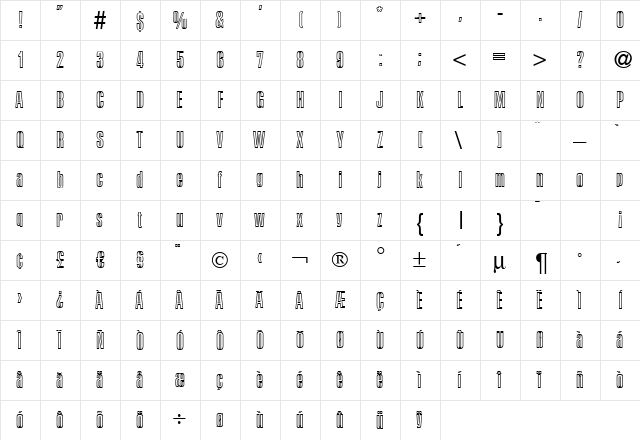
P700-Sans-Outline Regular
Design Context for P700-Sans-Outline Typeface
P700-Sans-Outline brings ornamental detail and strong personality to headlines and identities, where visual impact matters more than quiet functionality.
Font Pairing: Pair with a clean neutral sans-serif for body copy to let P700-Sans-Outline's character lead without overwhelming the composition.
Pro Tip: Use P700-Sans-Outline exclusively at display sizes — it was designed to be seen, not read at length. Let a neutral companion handle body copy.